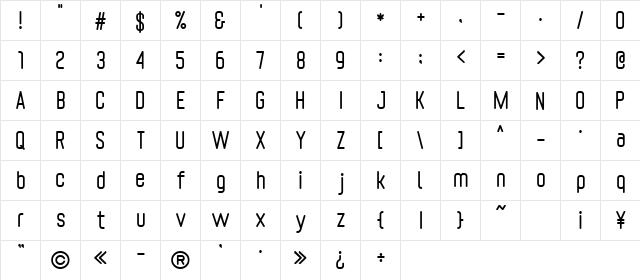
SpaghettiniIkasumi Regular
Design Context for SpaghettiniIkasumi Typeface
SpaghettiniIkasumi is a composed and adaptable typeface that performs quietly and consistently across a wide range of design contexts.